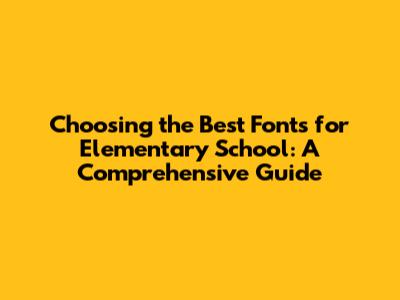
Hey guys! Choosing the right font might not seem like a big deal, but when it comes to elementary school kids, it can make a huge difference. Think about it: fonts are everywhere in a classroom, from worksheets and posters to books and digital displays. The right font makes learning easier, more enjoyable, and even helps with reading fluency. So, let's dive into the world of fonts and figure out which ones are the absolute best for our little learners! We'll explore what makes a font kid-friendly, the top font choices, and how to use them effectively. Get ready to become a font expert!
Why Font Choice Matters for Elementary School Students
Alright, let's get down to brass tacks: why does the font even matter? Well, when kids are just starting to read and write, the font is like the building blocks of their literacy journey. Imagine trying to build a LEGO castle with misshapen, confusing bricks – that's what reading can feel like with the wrong font. The best fonts for elementary school are those that prioritize clarity and readability. This means the letters are easily distinguishable from each other, with clear shapes and consistent sizing. This is crucial for preventing confusion, especially with letters that can look similar, like 'b' and 'd' or 'p' and 'q'. When the font is easy to read, kids can focus on the content rather than struggling to decipher the letters. This boosts their confidence and makes learning a whole lot more fun! Using the wrong font can lead to frustration, slower reading speeds, and even impact their ability to grasp the concepts they're reading. That's why font selection is such an important decision for educators and parents alike. When it comes to learning, we want to make it as easy as possible. That is why we should pick a good font, so kids can focus on what matters most.
Now, let's talk about the visual aspect. Fonts have personalities. Some fonts are playful and friendly, while others are more serious and formal. For elementary school, we typically want fonts that are approachable and engaging. Think about it: a font that's too elaborate or fussy can be distracting and take away from the learning experience. We want a font that feels welcoming and invites kids to read. This is especially true for younger children who are just getting their feet wet with reading. A visually appealing font can spark their interest and make them more eager to dive into a book or worksheet. The font should match the tone and purpose of the materials. We want a font that's easy on the eyes and helps kids associate reading with positive experiences. After all, we want to encourage a lifelong love of reading, and the right font can play a big role in that.
Impact on Reading Fluency and Comprehension
Let's not forget the crucial link between font choice and reading fluency and comprehension. When a font is easy to read, it helps children develop fluency. Reading fluency is the ability to read accurately, quickly, and with expression. Think of it like this: the more easily a child can decode the words, the more attention they can give to understanding what they're reading. A clear, well-designed font allows kids to focus on the meaning of the words and phrases. They are not getting bogged down by deciphering the shapes of the letters. This, in turn, boosts their comprehension skills. Comprehension is all about understanding what you read. Choosing the right font is like giving kids a head start on their journey to becoming skilled readers. The more easily they can read, the more they will understand. This connection between font and reading proficiency makes font selection a key decision for anyone involved in a child's education. By choosing the right fonts, we equip them with the tools they need to read with confidence and understand what they are reading. This, in turn, helps them build a strong foundation for their overall academic success.
Top Font Choices for Elementary School
So, what are the best fonts for elementary school? There are several fonts that consistently top the charts for their readability and kid-friendliness. These fonts are specifically designed with young learners in mind. These are the unsung heroes of the classroom, working hard to make reading a breeze. Let's get to know some of the most popular and effective choices.
1. Comic Sans
Okay, before you roll your eyes, hear me out! Yes, Comic Sans has gotten a bad rap over the years, and for good reason! It's overused and often misused. However, when used sparingly and appropriately, Comic Sans can be a great option for younger children. Its rounded, friendly letter shapes make it easy for beginners to distinguish between letters. The problem arises when it's used everywhere, or in formal settings, like a business presentation. But for elementary school materials, especially for early readers, it can be a perfectly acceptable choice. Comic Sans is great for things like posters, labels, and worksheets. It's best used when you want a fun, informal look that's inviting to kids. Just remember the key is moderation – use it strategically and in the right context!
2. Arial
Arial is a classic, go-to font for a reason. It's a clean, simple, sans-serif font that's incredibly versatile. Its straightforward design makes it highly readable, even at smaller sizes. Arial is a safe bet for a wide range of educational materials, from textbooks to worksheets. It's less playful than Comic Sans, but its simplicity is its strength. This font is a workhorse, a dependable choice that gets the job done without any fuss. The clear letterforms make it easy for children to distinguish between letters, and its consistent sizing ensures a pleasant reading experience. For any material where clarity and readability are top priorities, Arial is a reliable choice.
3. Century Gothic
Century Gothic is a geometric sans-serif font that looks a bit more modern and elegant than Arial. It has a slightly wider appearance, which can make it easier to read. This font is an excellent choice for a variety of educational purposes. It's slightly more sophisticated than Comic Sans, making it suitable for a wider age range. Century Gothic is a fantastic choice for headings, titles, and body text. Its clean lines and open letterforms create a modern feel without sacrificing readability. If you want a font that looks great and is easy to read, Century Gothic is a winner.
4. KG Primary Penmanship
This font has a handwritten style that mimics the way children learn to write. This type of font is especially useful for early learners who are still developing their handwriting skills. It helps them connect the printed word with the act of writing. The font's handwriting style mimics the way letters are formed with a pen or pencil. This can be great for worksheets and activity sheets to practice handwriting, and for creating a more personal, engaging look. The font helps kids connect the dots between what they write and what they read. Using this font, you can make the learning process a little more interactive and engaging for them.
Key Features of Kid-Friendly Fonts
So, what are the key features that make a font kid-friendly? Let's break it down! Choosing a font is a lot like choosing a superhero for your reading material. You want a font that has the right superpowers – like clarity, consistency, and a friendly design.
1. High Readability
First and foremost, readability is everything. The best fonts have clear, distinct letterforms. This means letters like 'b' and 'd' are easily distinguishable, and the shapes of the letters are easy to understand. Look for fonts with open counters (the spaces inside letters like 'a' and 'e') and consistent stroke weights. This makes it easier for kids to identify each letter. This prevents confusion and keeps the focus on the words, rather than the letters themselves. High readability is the foundation for a good reading experience.